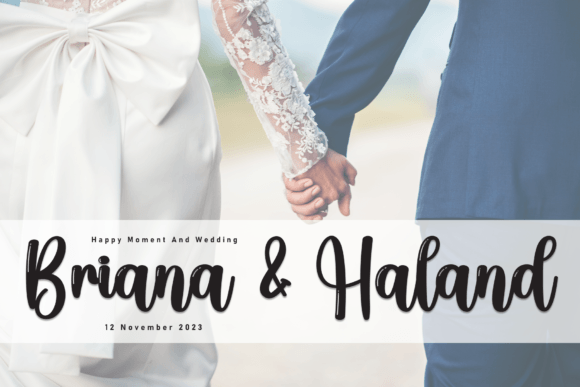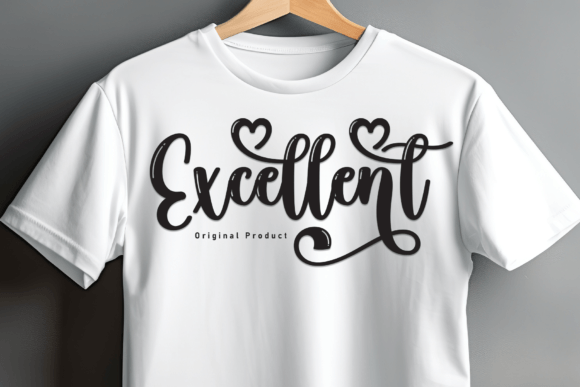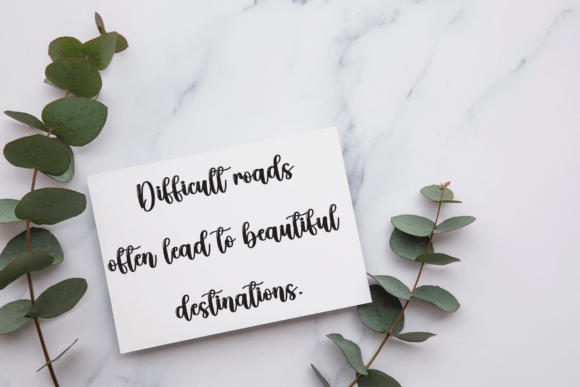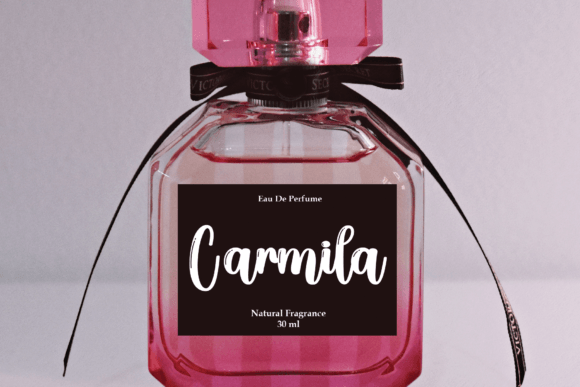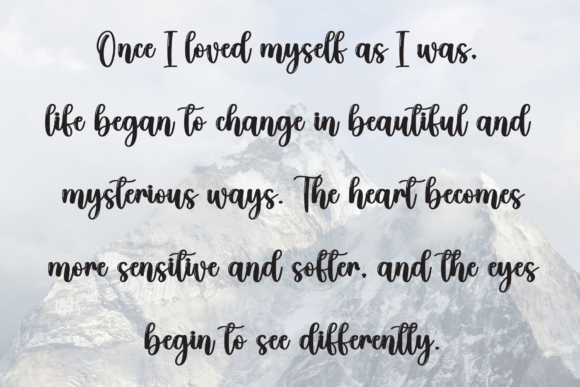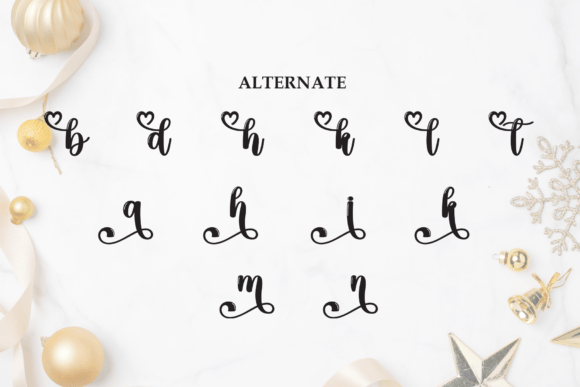
Introducing Bauble Font: The Timeless Handwritten Font for Stunning Designs
Are you a designer or crafter looking for a font that can add a touch of elegance and sophistication to your creations? Look no further than Bauble Font! This lovely and timeless handwritten font is perfect for creating eye-catching logos, branding, and quotes that will leave a lasting impression on your audience.
The Unique Charm of Bauble Font
Bauble Font stands out from other fonts due to its unique and beautiful touch. Every letter has been carefully crafted to have its own distinct character, making it a true showstopper. The font’s handwritten style gives it a warm and personal feel, making it perfect for designs that require a touch of personality and whimsy.
When it comes to creating logos and branding materials, you want a font that will make your design stand out from the crowd. Bauble Font is the perfect choice for this. Its elegant and sophisticated style makes it ideal for luxury brands, while its playful and whimsical touch makes it perfect for more creative and artistic brands.
With Bauble Font, you can create stunning logos that will help you establish a strong brand identity. The font’s unique and beautiful touch will make your logo look professional and high-end, while its handwritten style will add a touch of warmth and personality.
Ideal for Quotes and Typography
Bauble Font is not just limited to logos and branding. It’s also perfect for creating stunning quotes and typography designs. The font’s elegant and sophisticated style makes it ideal for inspirational quotes, while its playful and whimsical touch makes it perfect for more creative and artistic typography designs.
With Bauble Font, you can create beautiful quotes that will inspire and motivate your audience. The font’s unique and beautiful touch will make your quotes look stunning and professional, while its handwritten style will add a touch of warmth and personality.
Why Choose Bauble Font?
So why choose Bauble Font over other fonts? Here are just a few reasons:
- Unique and Beautiful Touch: Every letter in Bauble Font has a unique and beautiful touch that will make your designs stand out from the crowd.
- Timeless Style: Bauble Font has a timeless style that will never go out of fashion. Its elegant and sophisticated style makes it perfect for luxury brands, while its playful and whimsical touch makes it perfect for more creative and artistic brands.
- Handwritten Style: The font’s handwritten style gives it a warm and personal feel, making it perfect for designs that require a touch of personality and whimsy.
- Easy to Read: Bauble Font is easy to read, making it perfect for designs that require a clear and concise message.
Tips for Using Bauble Font
Here are a few tips for using Bauble Font in your designs:
- Use it for Headlines: Bauble Font is perfect for headlines and titles. Use it to create stunning headlines that will grab the attention of your audience.
- Pair it with Other Fonts: Bauble Font can be paired with other fonts to create a unique and interesting design. Try pairing it with a clean and simple font to create a stunning contrast.
- Experiment with Colors: Bauble Font looks stunning in a variety of colors. Experiment with different colors to find the one that works best for your design.
In conclusion, Bauble Font is a lovely and timeless handwritten font that is perfect for creating eye-catching logos, branding, and quotes. Its unique and beautiful touch, combined with its elegant and sophisticated style, makes it a must-have font for designers and crafters. Whether you’re looking to create a stunning logo, a beautiful quote, or a unique typography design, Bauble Font is the perfect choice.